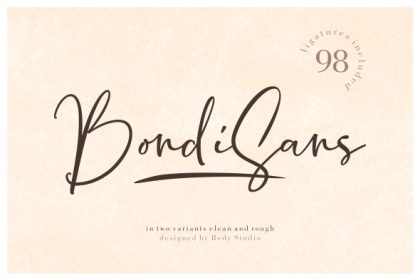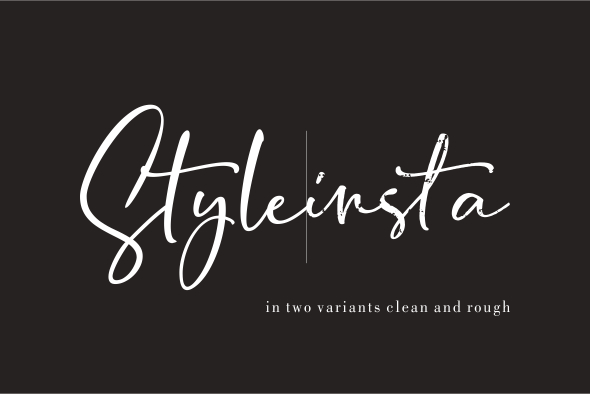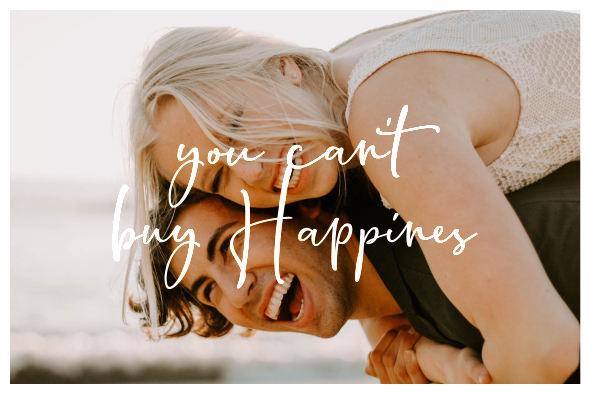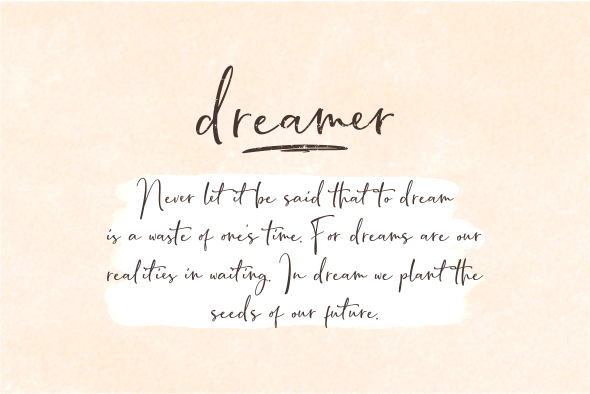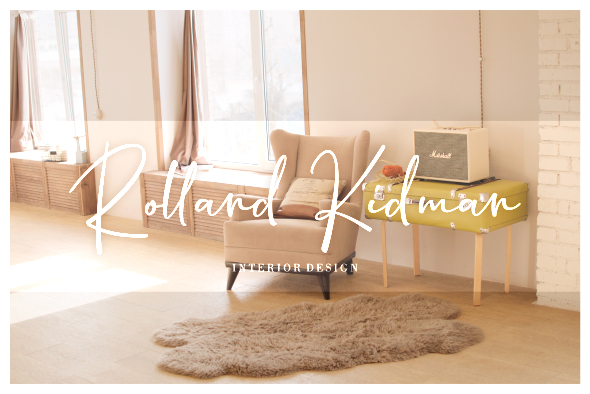
BondiSans Script Font
Introduce BondiSans, is a bold messy, casual, carefree script with lovely and Comes with 98 ligatures for a totally unique hand-written feel. Bondisans consists of 2 variants, which are clean and rough, you can see more in the preview.
BondiSans Font is great for logo, printed quotes, badge, insignia, packaging, headline, greeting card, and wedding invitation, & etc.